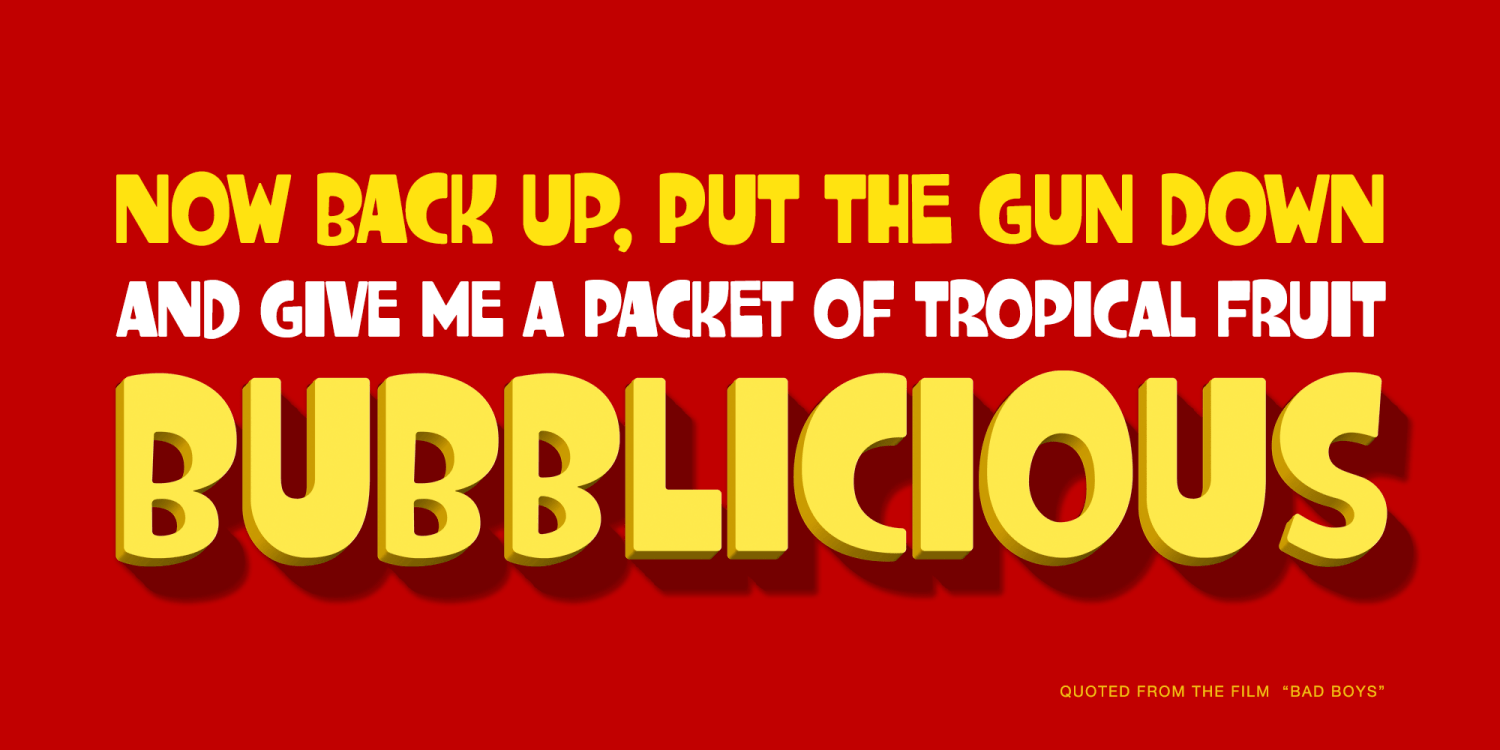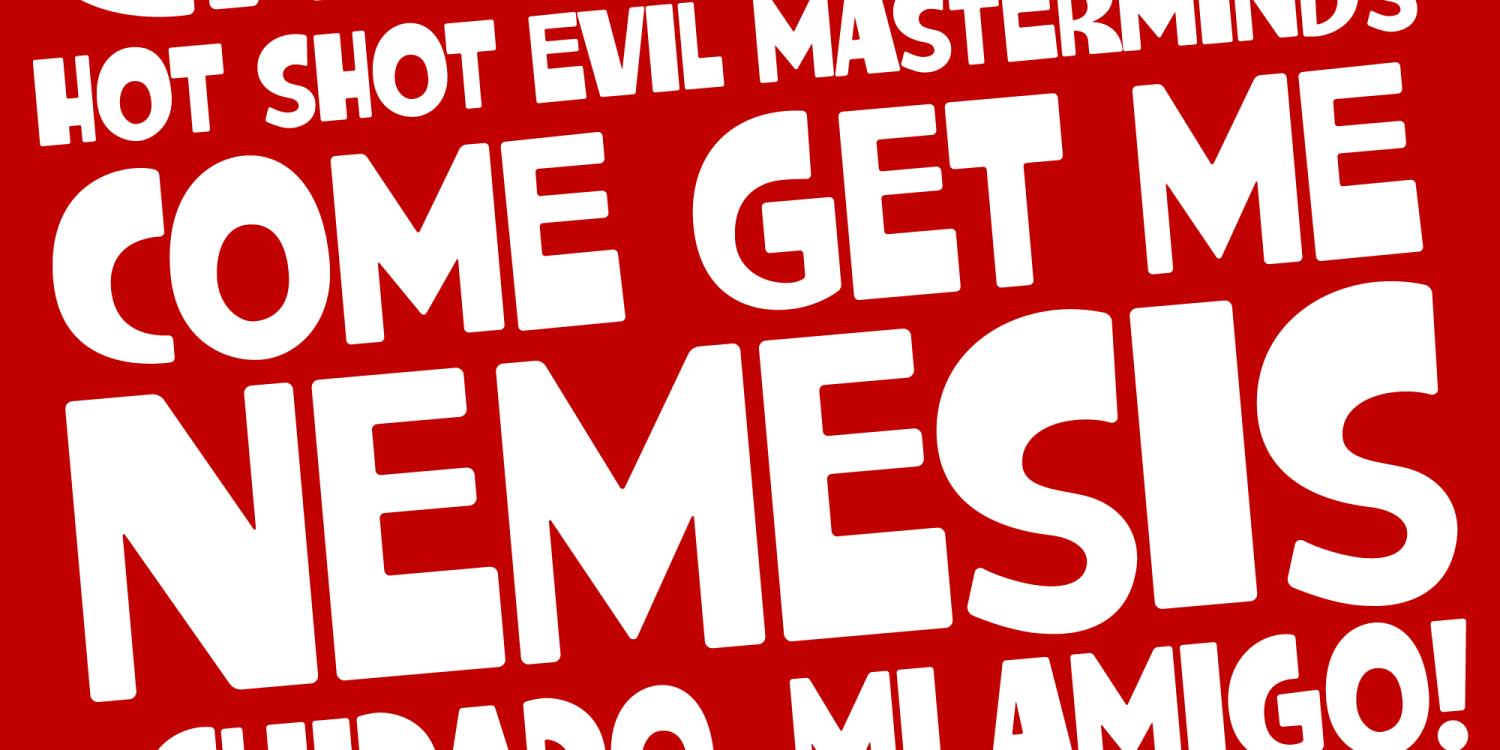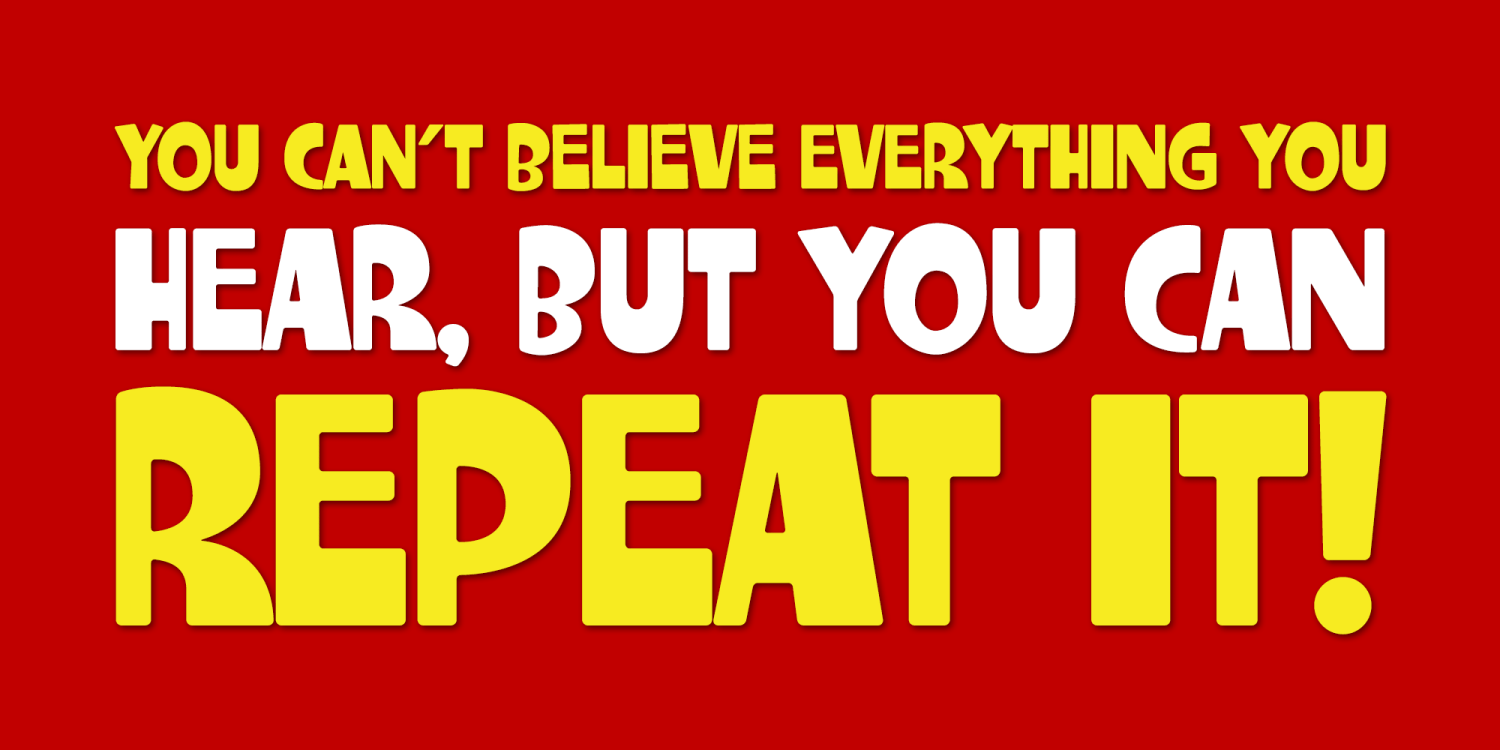
About Charming Charlie PB
Looking for a fun, offbeat, and fantastic font? Charming Charlie is here to fit the bill! Inspired by an old poster for the film Charlie Chan in Egypt, comes this playfully plump, soft-edged sans serif font to sweep you off your feet. The Contextual Alternates feature in this font automatically alternates between the Capitals and alternate Capitals of the font to mix things up a bit and keep your type-settings lively.
The Charming Charlie PB font family includes 379 glyphs.
Charming Charlie PB by Pink Broccoli